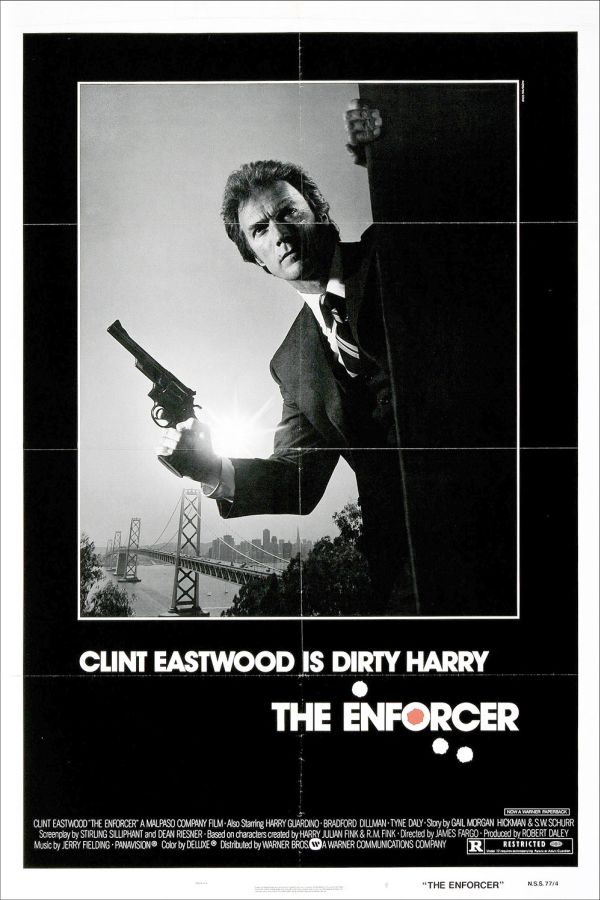
The Enforcer Font
ActionThe Enforcer is a 1976 American action thriller film and the third in the Dirty Harry film series, directed by James Fargo. In the film, "Dirty Harry" Callahan (Clint Eastwood) and his new partner, Inspector Kate Moore (Tyne Daly), must stop the terrorist group the People's Revolutionary Strike Force who kidnap the mayor (John Crawford) and steal rockets and rifles for their next attack.
ITC Avant Garde Gothic Bold, a geometric sans serif first created by Herb Lubalin and Tom Carnase in 1970, is the font used for the movie title on the poster. More details about the typeface can be found here.